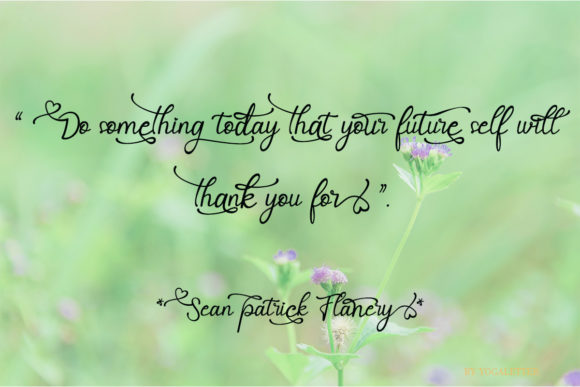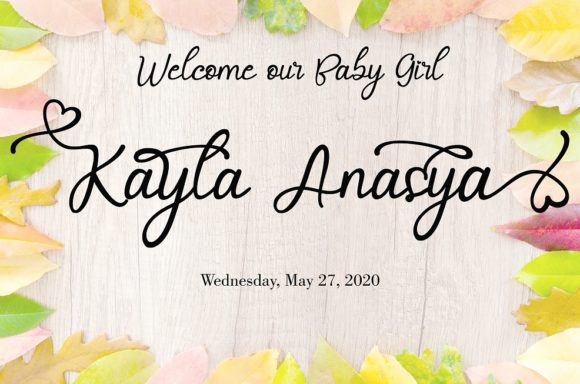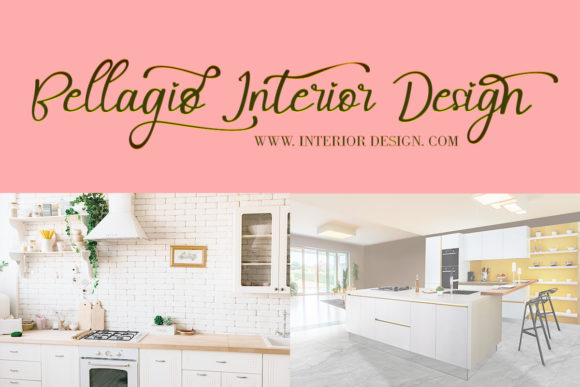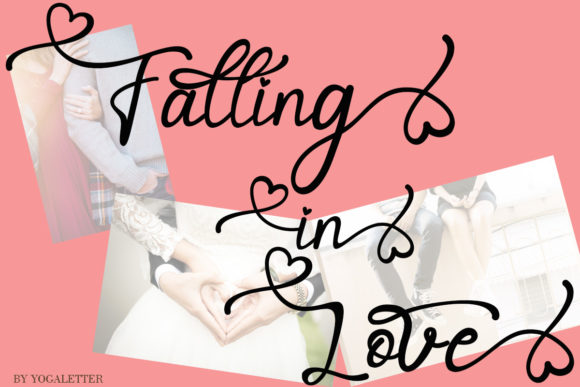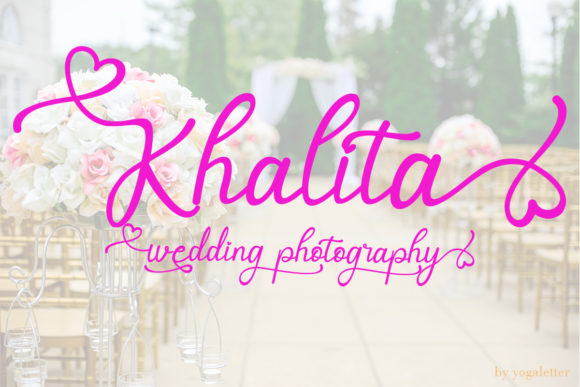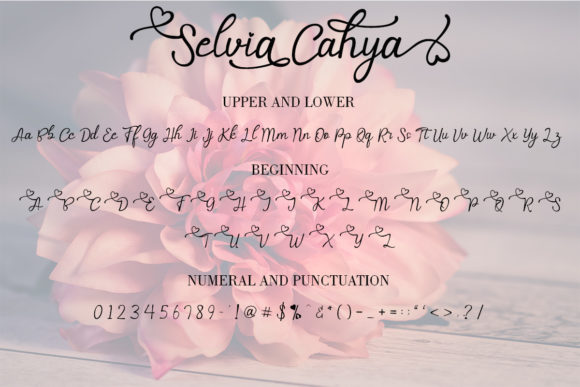
Introduction to Selvia Cahya Font
Selvia Cahya feels equally charming and elegant.
It looks lovely on wedding invitations, thank you cards, quotes, greeting cards, logos, business cards and every other design which needs a handwritten touch This font is PUA encoded which means you can access all of the glyphs and swashes with ease.
Key Features of Selvia Cahya Font
Why Choose Selvia Cahya Font?
Selvia Cahya Font offers exceptional quality and versatility, making it a valuable addition to your design toolkit. Whether you’re creating for personal projects or commercial use, Selvia Cahya Font delivers professional results.